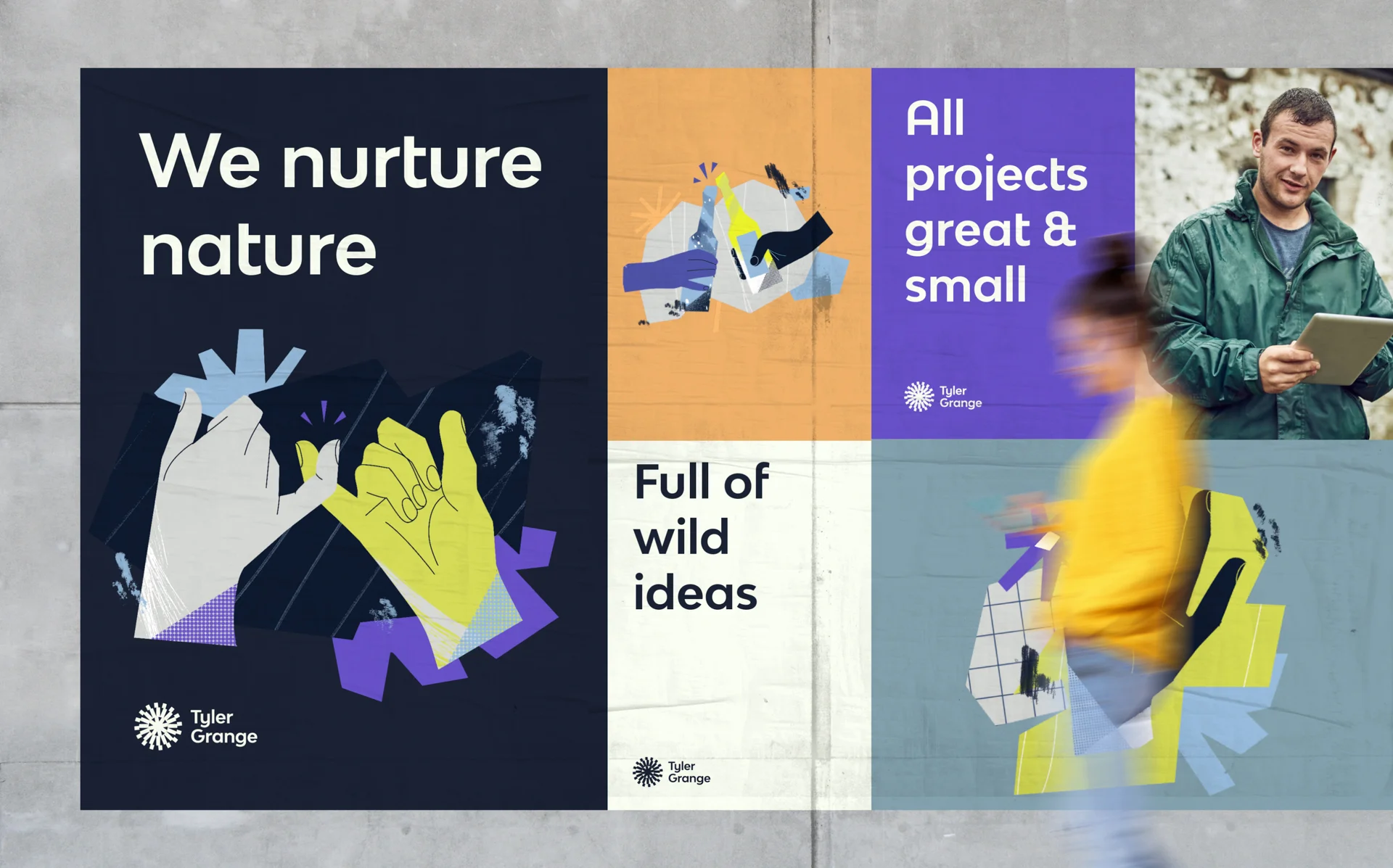
Designed by Alberto Romanos, Bw Modelica is a minimal, robust, reliable & pragmatic geometric sans. Its clean shapes and generous x-height makes it a very competent face for both, display and body copy purposes.
It’s available in four widths, each containing eight weights with matching oblique italics (that's 64 styles in total). The main font files include two stylistic sets allowing for more expressive options, specially for display use. SS01 and SS02 are also available as stand-alone font files, for those who would prefer to use them directly without activating the OpenType feature.
Initially supporting all Latin European languages, the character set was expanded in August 2017 covering Greek and Cyrillic scripts for the standard width subfamily.
OpenType Features
Old Style Figures (.onum)
Tabular Figures (.tnum)
Also Stylistic Sets, Case Sensitive Forms, Fractions...